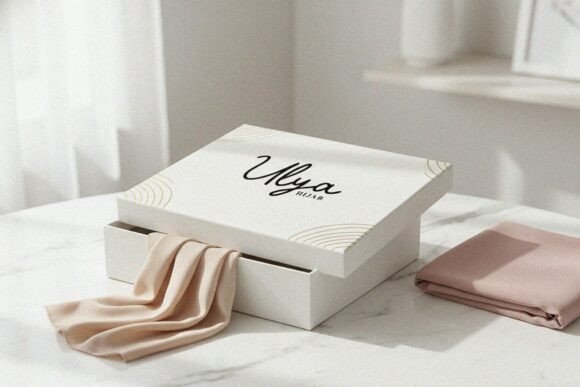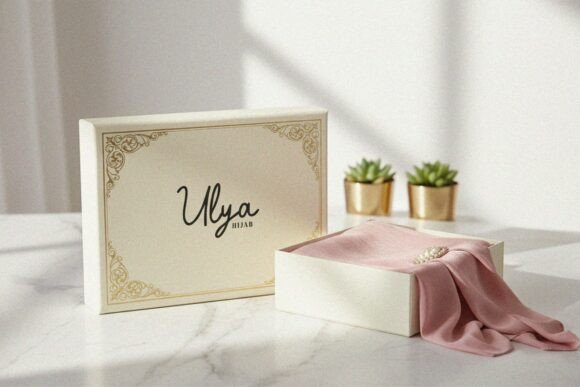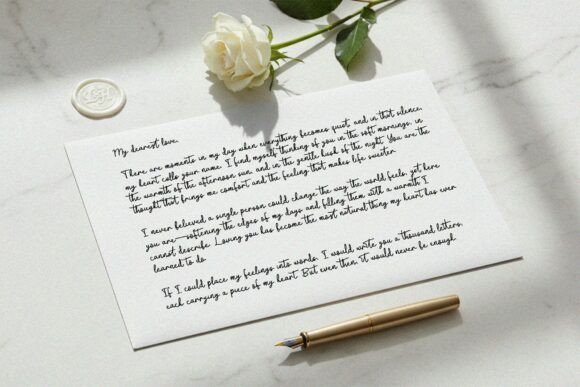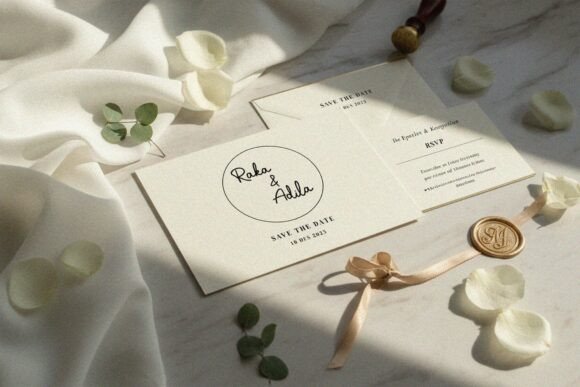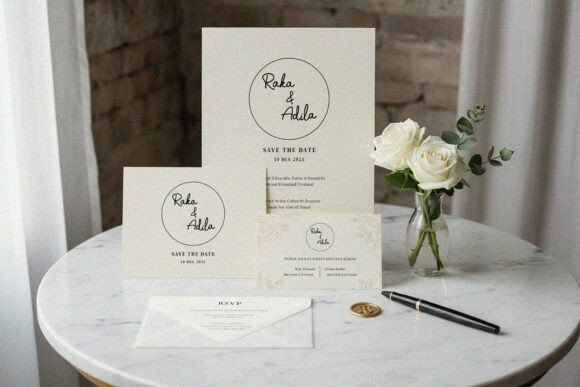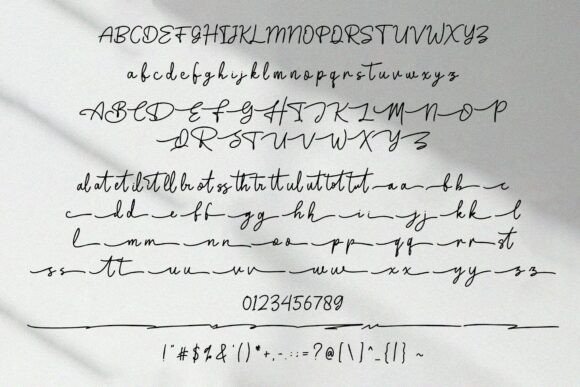
Introduction to Maithi Font Font
Fonts play a crucial role in design, and the Maithi Font font is a typeface that brings both character and versatility to any project. Whether you’re working on a branding project, a website, or a print design, the Maithi Font font offers a unique style that can elevate your work.
Maithi Monoline Script Font is a clean, smooth, and modern monoline typeface crafted to bring effortless elegance to any design.
With its balanced strokes and minimalistic handwritten flow, Maithi is perfect for logos, branding projects, packaging, wedding invitations, quotes, and stylish social media content Its simplicity makes it versatile, while the subtle monoline charm adds a warm, personal touch to your layouts.
Key Features of Maithi Font Font
Why Choose Maithi Font Font?
The Maithi Font font is more than just a typeface – it’s a design tool that helps you communicate your message with style and clarity. Its unique character set and versatile design make it suitable for a wide range of applications, from elegant invitations to bold headlines.
With its carefully crafted letterforms and balanced proportions, the Maithi Font font ensures readability and visual appeal across all mediums.
What makes Maithi Font font special?
The Maithi Font font stands out with its unique design, exceptional readability, and versatility across various design applications.